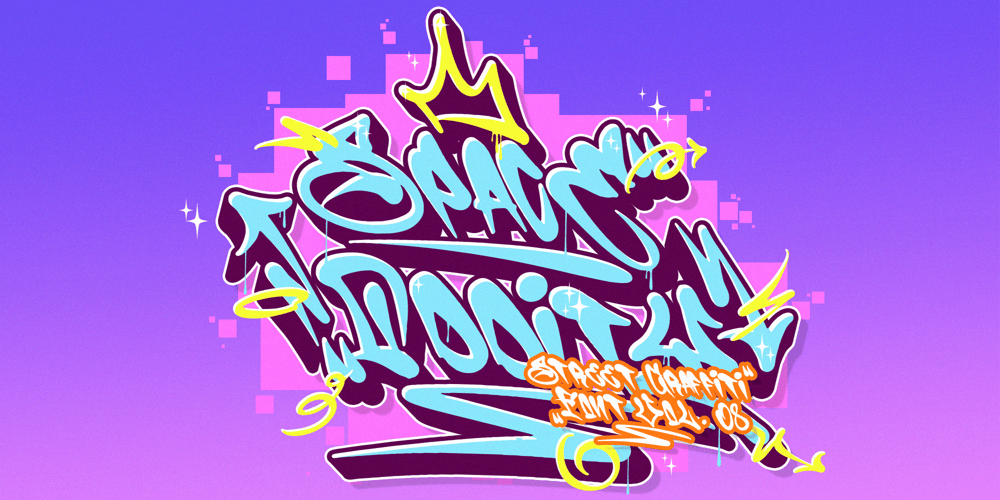
Space Oddity Graffiti Font Family was designed by Ferry Ardana Putra and published by Ferry Ardana Putra. Space Oddity Graffiti contains 2 styles and family package options. Space Oddity is a bold and innovative street graffiti font that captures the essence of urban art with a futuristic twist. This unique font supports multiple foreign languages, ensuring your designs resonate across the globe. Featuring both uppercase and lowercase letters, Space Oddity offers flexibility and impact for any creative project.Inspired by the dynamic and rebellious spirit of street tagging, Space Oddity brings your designs to life with its distinctive style. The font is perfect for graffiti artists and enthusiasts, offering a visually striking and entertaining way to write. Space Oddity also includes an array of street graffiti ornaments, adding authenticity and artistic flair to your work.Perfect for: Urban Art Projects: Elevate your murals, posters, and digital art with a bold, graffiti-inspired aesthetic. Branding: Create memorable and edgy logos that stand out from the crowd. Apparel Design: Design striking t-shirts, hoodies, and other streetwear items. Event Promotions: Add an eye-catching, urban touch to flyers, banners, and social media graphics. Web Design: Infuse your website with a gritty, street-style vibe through impactful headers and graphics. Merchandise: Customize products like skateboards, backpacks, and more with authentic graffiti style. Take your creativity to the next level with the extruded version of Space Oddity, allowing you to create stunning 3D street-style graffiti projects. This feature adds depth and dimension, making your designs truly pop and bringing an additional layer of realism and boldness to your artwork.Unleash your creativity with Space Oddity, the ultimate street graffiti font for those who dare to push boundaries and make a statement. Let your designs transcend the ordinary and enter a new dimension of urban artistry.Space Oddity features: A full set of uppercase and lowercase Numbers and punctuation Multilingual language support PUA Encoded Characters OpenType Features Layered Style +373 Total Glyphs +135 Graffiti Swashes and Ornaments included!